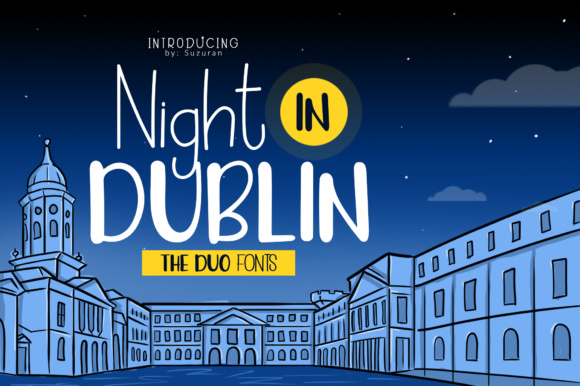
Embark on a whimsical journey with Night in Dublin, an enchanting display font that will ignite your creativity. Whether you're seeking to express joy or infuse your designs with a playful spirit, this enchanting typeface holds the key to captivating audiences.
Night in Dublin's thin and bold uppercase styles are like two sides of the same whimsical coin. The delicate thin style dances across the page, inviting you to whisper sweet nothings and share heartfelt messages. Its bold counterpart, on the other hand, commands attention with its robust strokes, perfect for making bold statements that linger in the memory.
This versatile font seamlessly adapts to a myriad of design ventures, from eye-catching logos that demand remembrance to branding that radiates warmth and cheer. Greeting cards adorned with Night in Dublin will carry your well wishes with an extra dose of delight, while posters featuring this typeface will transform into captivating works of art.
But the allure of Night in Dublin extends far beyond its aesthetic charm. This font possesses an uncanny ability to evoke emotions, stirring feelings of joy, nostalgia, and boundless imagination. Whether you're designing for a playful project or seeking to add a touch of whimsy to your work, Night in Dublin is the perfect companion.
With its cheerful disposition and captivating style, Night in Dublin is more than just a font – it's an invitation to let your creativity soar. Embrace the magic of this enchanting typeface and watch your designs transform into captivating masterpieces that will leave an unforgettable impression on all who behold them.